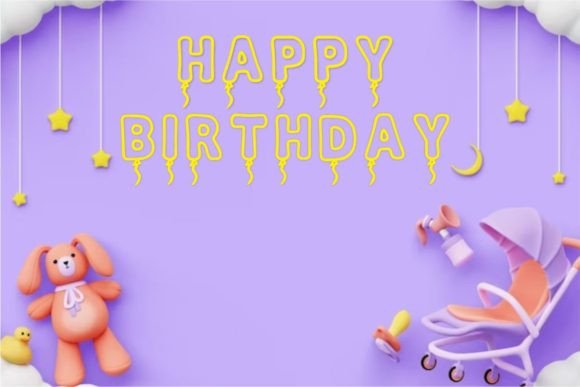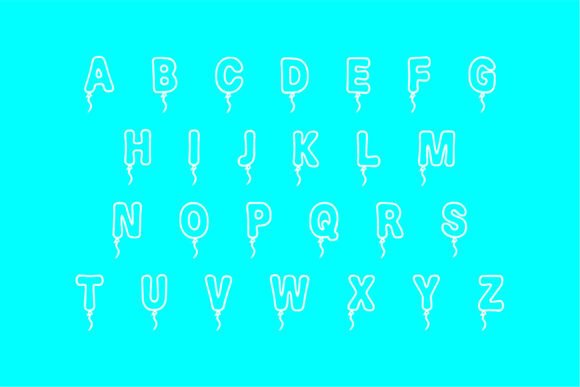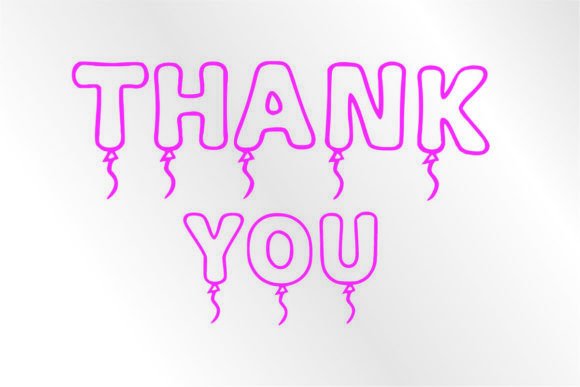
Adding a Touch of Youth to Your Designs
Have you ever been brainstorming a new project and suddenly, out of nowhere, a spark of creativity hits you? Maybe it’s a bold color combination, an innovative layout, or a quirky font that instantly captures the essence of your idea. For designers, those ‘aha’ moments are what make the creative process so thrilling.
One such spark of inspiration is the Ballon Font – a playful, whimsical font that’s perfect for adding a touch of youth and fun to your designs. Whether it’s a promotional material, a birthday invitation, or a children’s cartoon, the Ballon Font brings a carefree spirit that’s sure to delight. Its versatility and charm make it a valuable asset for designers looking to inject a bit of magic into their work.
Ballon Font Key Features
- Unique Characteristics: Ballon Font features a unique, hand-drawn style with subtle imperfections, giving it a personal and whimsical touch.
Ballon Font Review
I recently had the chance to work with the Ballon font, and overall, I’m impressed. The font is designed to evoke a sense of playfulness and whimsy, and it does just that. ✨ One of the things I love about Ballon is its flexibility – it can be used for a wide range of applications, from titles and headings to body text and even display text. It’s a versatile font that can add a touch of personality to any design.
One of the standout features of Ballon is its unique, hand-drawn feel. ✨ The font’s irregularities and imperfections give it a charming, human touch that’s hard to find in more traditional fonts. This makes it a great choice for designers looking to add some visual interest to their work.
- ⚠️ Limited support for languages other than English and some European languages.
- ⚠️ May not be suitable for formal or professional designs, due to its playful nature.
- ⚠️ Can be difficult to read in small sizes or low-contrast environments.
Overall, I think the Ballon font is a great choice for designers looking to add some personality to their work. While it may have some limitations, its unique feel and versatility make it a great addition to any font collection. If you’re looking for a font that will add some whimsy to your designs, Ballon is definitely worth checking out.
Tips for Getting the Most Out of Ballon Font
To get the most out of the Ballon Font, consider the following tips:
- Use it for creative and playful designs.
- Pair it with bold and bright colors.
- Experiment with different font sizes and styles.
The Ballon Font is commonly used for:
- Party invitations and decorations.
- Children’s birthday parties and events.
Alternatives to Ballon Font
Playfair Display is an elegant, high-end serif font ideal for use in luxury branding, magazines, and high-end advertising. It features beautiful connections between letters and a unique touch of sophistication.
Compared to Ballon Font, Playfair Display is more formal and luxurious, while Ballon Font is more playful and fun. Use Playfair Display when you need to convey high-end quality and sophistication.
Great Vibes is a modern, elegant script font perfect for use in wedding invitations, branding, and advertising. It features a smooth, flowing connection between letters and a touch of sophistication.
Compared to Ballon Font, Great Vibes is more elegant and sophisticated, while Ballon Font is more playful and fun. Use Great Vibes when you need to convey a sense of luxury and high-end quality.
The recommended font size for using Ballon Font varies depending on the application and desired visual effect. However, as a general guideline, it is recommended to use font sizes between 12pt and 24pt for body text and larger sizes for headings and titles. This will ensure optimal readability and visual impact.